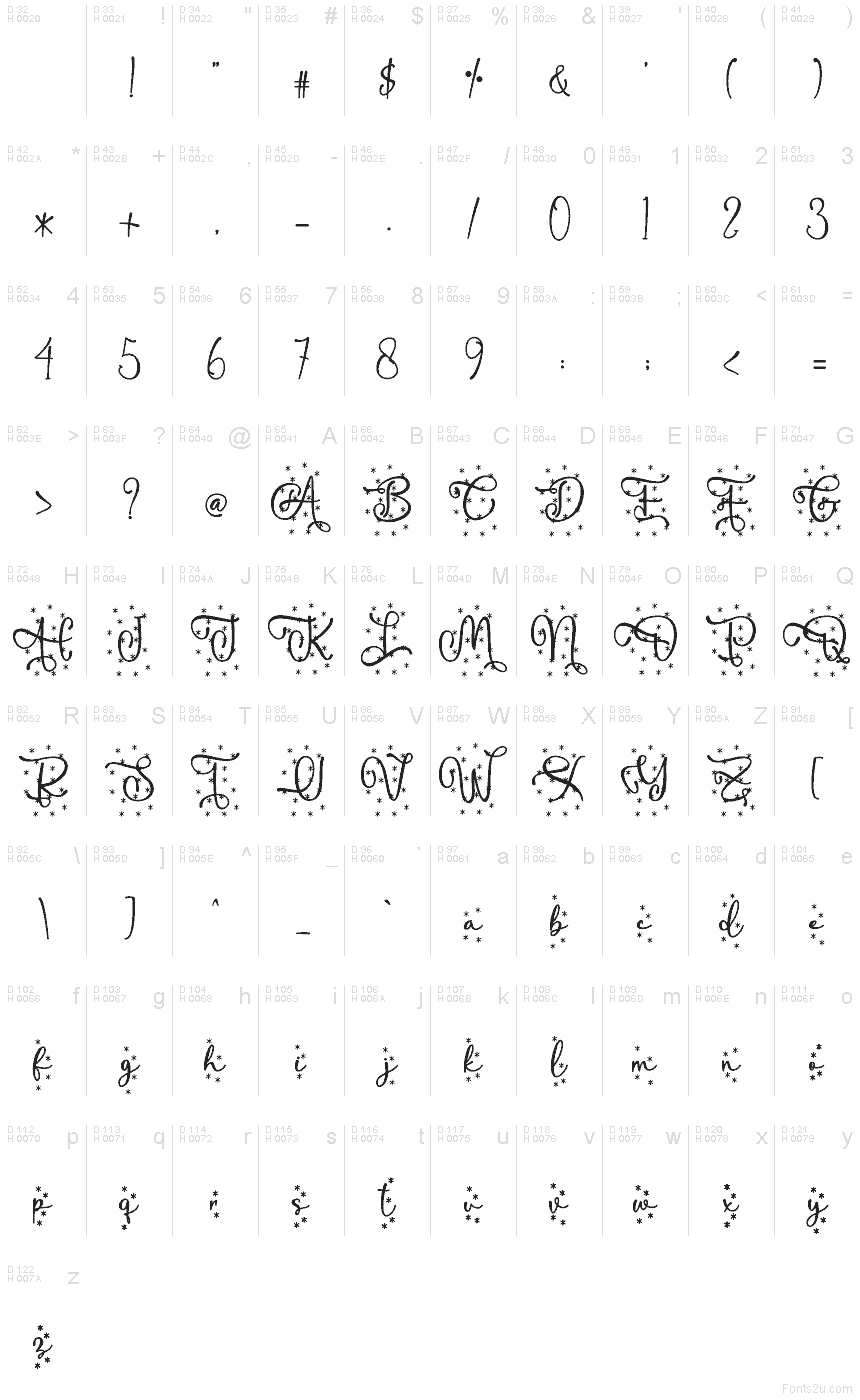
Lightning Christmas font by Letterafa Studio is a free decorative Christmas script typeface that looks like it’s been dusted with glittering snow. Loose, looping strokes weave through clusters of tiny star shapes, giving each word the feel of a handwritten greeting caught in a flurry of light. The letters stay surprisingly legible despite all the sparkle, so you get full festive drama without sacrificing readability.
Using Lightning Christmas, your holiday designs instantly feel more magical and hand-crafted. This free font shines on greeting cards, gift tags, party invitations, seasonal social posts, product packaging, and cozy mug or T‑shirt designs. For a clean, modern balance, pair its twinkling script with a simple sans serif in small caps and keep Lightning Christmas for the main headlines or short phrases.